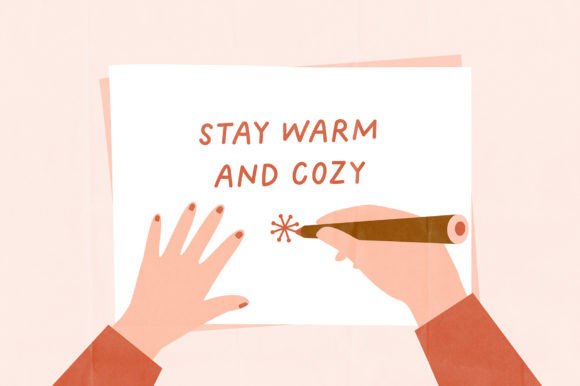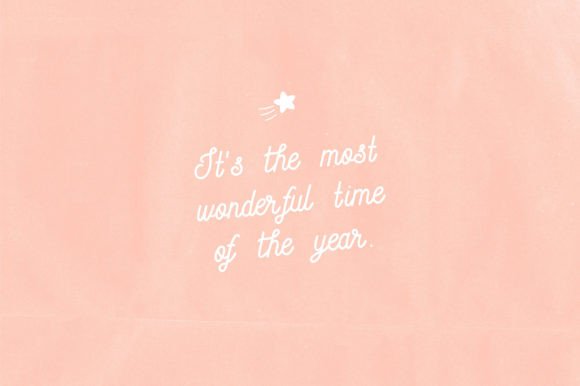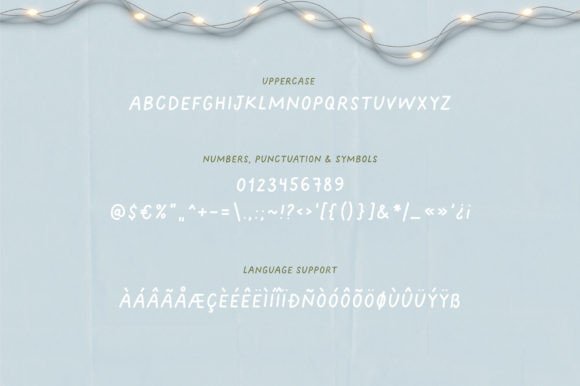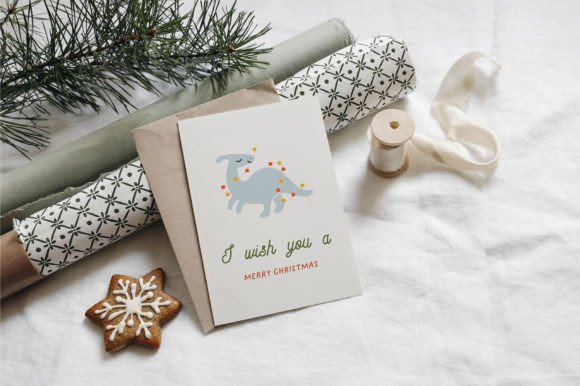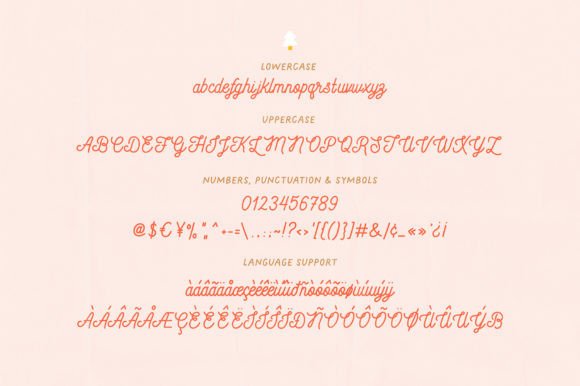
The Magic of First Snow Font: A Designer’s New Best Friend
I still remember the day I stumbled upon the perfect font for a client’s holiday project. I had been searching for what felt like hours, trying out font after font, but nothing seemed quite right. That was until I discovered First Snow – a fun and bright handwritten font that instantly conveyed the friendliness and warmth I was looking for. In this article, I’ll share my experience with First Snow, its features, and how to make the most of it in your designs.
An Honest Review of First Snow Font
What I Love About First Snow ✨
- ✅ Its impeccable friendliness – perfect for crafts, digital designs, presentations, or making greeting cards
- ✨ A fun and bright aesthetic that adds a touch of whimsy to any project
- 💻 Highly versatile and adaptable to various design contexts
- 👍 Easy to read and understand, even in smaller font sizes
- ⚠️ Some users may find the font a tad too playful for very formal or professional projects
- ⚠️ Limited availability of stylistic alternates, which might restrict design variations
One of the exciting aspects of First Snow is its support for OpenType features. These features allow you to add flourishes and variations to your text, making it more visually appealing. To access these features:
The Backstory of First Snow Font
First Snow was designed with the intention of capturing the magic and warmth of the winter season. Its creator aimed to craft a font that would be both fun and inviting, suitable for a variety of design applications. Whether you’re a designer, crafter, or hobbyist, First Snow is sure to become a favorite in your collection.
| Font Name | First Snow Font |
| Author | Julia_Volkova |
| What makes First Snow Font unique? | Its friendly and approachable aesthetic, combined with its versatility and ease of use. |
| Is First Snow suitable for body text? | While it’s primarily designed for headings and titles, First Snow can be used for short paragraphs of body text, especially in larger font sizes. |